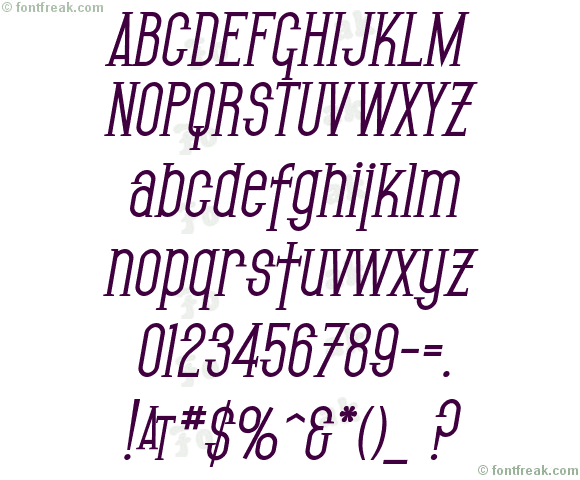
About Gothican
Gothican by Shyfonts Type Foundry is a striking display font that embodies a bold and condensed style, making it a standout choice for various creative projects. This freeware font showcases an oblique design characterized by thick strokes and sharp angles, providing a unique visual appeal. The contrast between the heavy weight of the characters and the delicate spacing creates an eye-catching effect that draws attention to any text it adorns. With its decorative elements and gothic influences, Gothican is ideal for projects that require a touch of elegance combined with a sense of drama.
This font excels in several specific use cases, including movie posters that seek to evoke a sense of mystery or intrigue, as well as branding for gothic-themed events or businesses. It can also enhance the aesthetics of restaurant menus, particularly for establishments that wish to convey a unique or avant-garde dining experience. Additionally, Gothican is a perfect choice for concert flyers or promotional materials for bands, especially those in rock or alternative genres.
Targeting graphic designers, small business owners, and content creators, Gothican offers versatility and style that can elevate any design project. Whether you are creating merchandise, social media graphics, or event invitations, this font provides the bold presence needed to make a lasting impression.
What sets the Gothican font apart is its ability to blend contemporary design with classic gothic elements, making it suitable for both modern and traditional applications. Its freeware status allows easy access, enabling creatives to experiment and incorporate it into their work without restrictions. For those looking to add a distinctive edge to their typography, the Gothican font free download is an opportunity not to be missed.